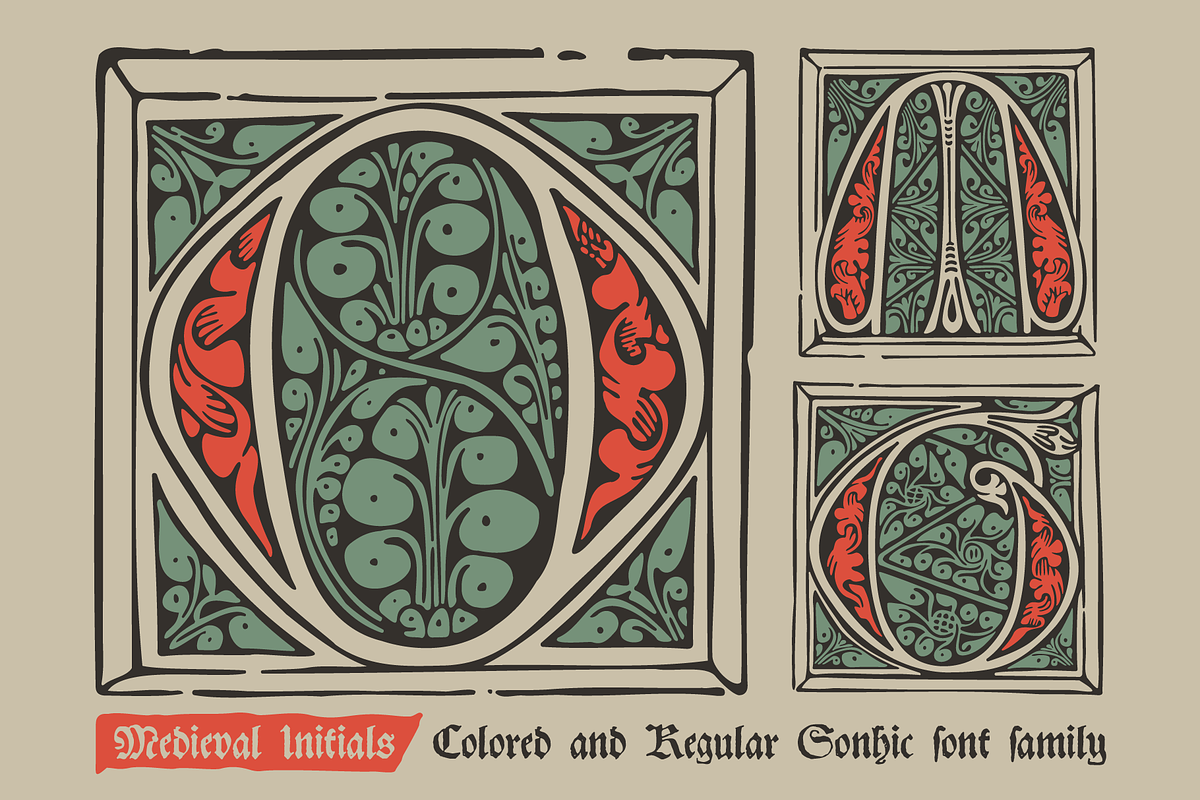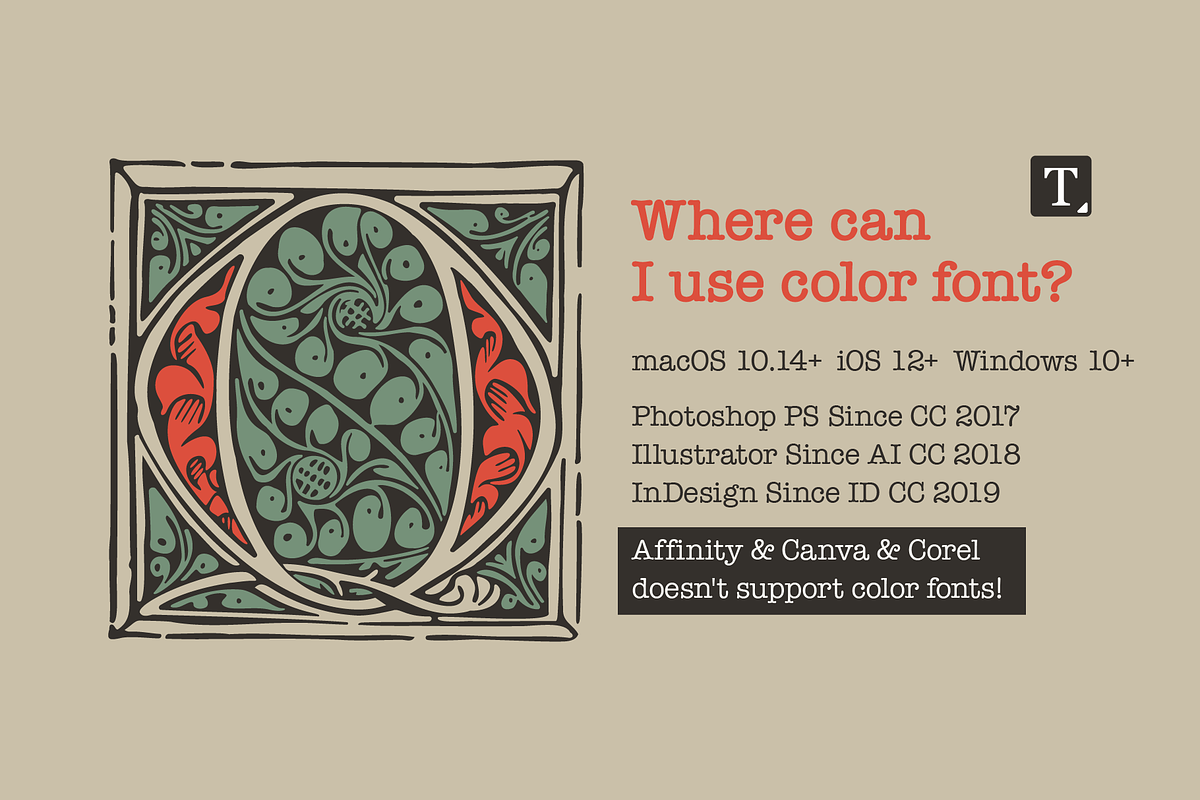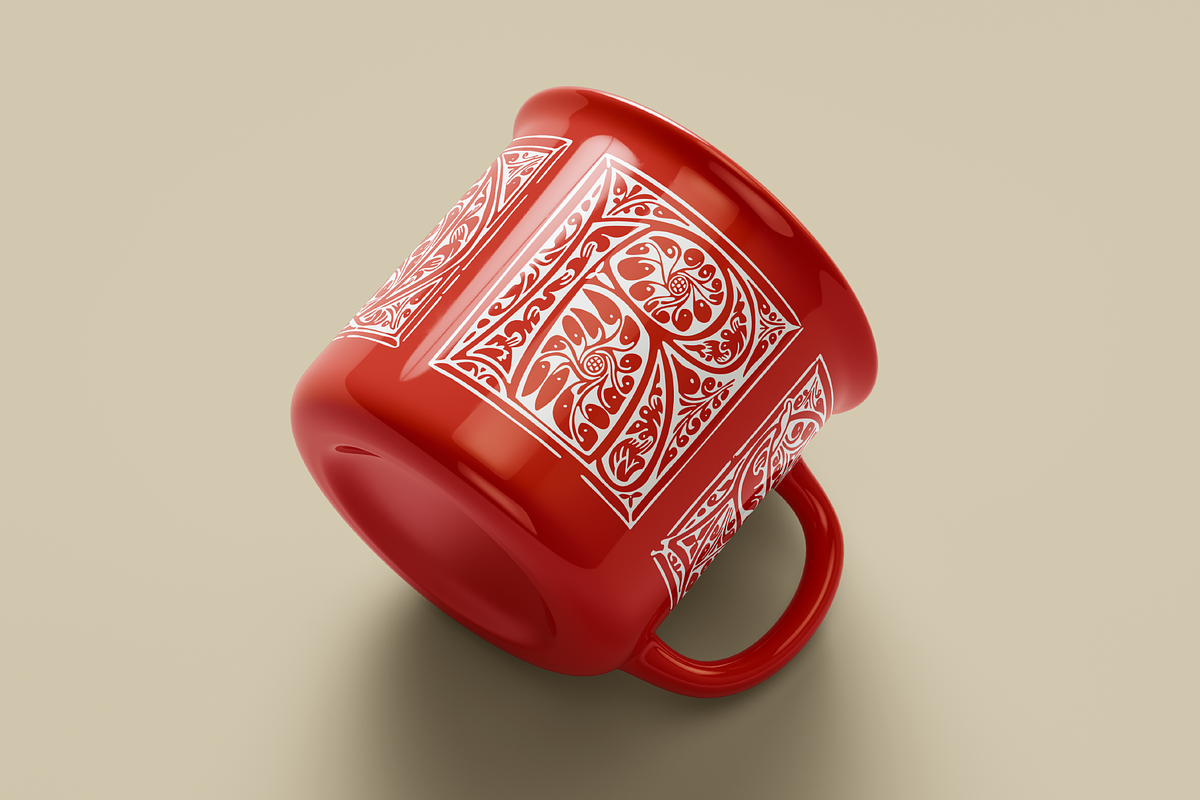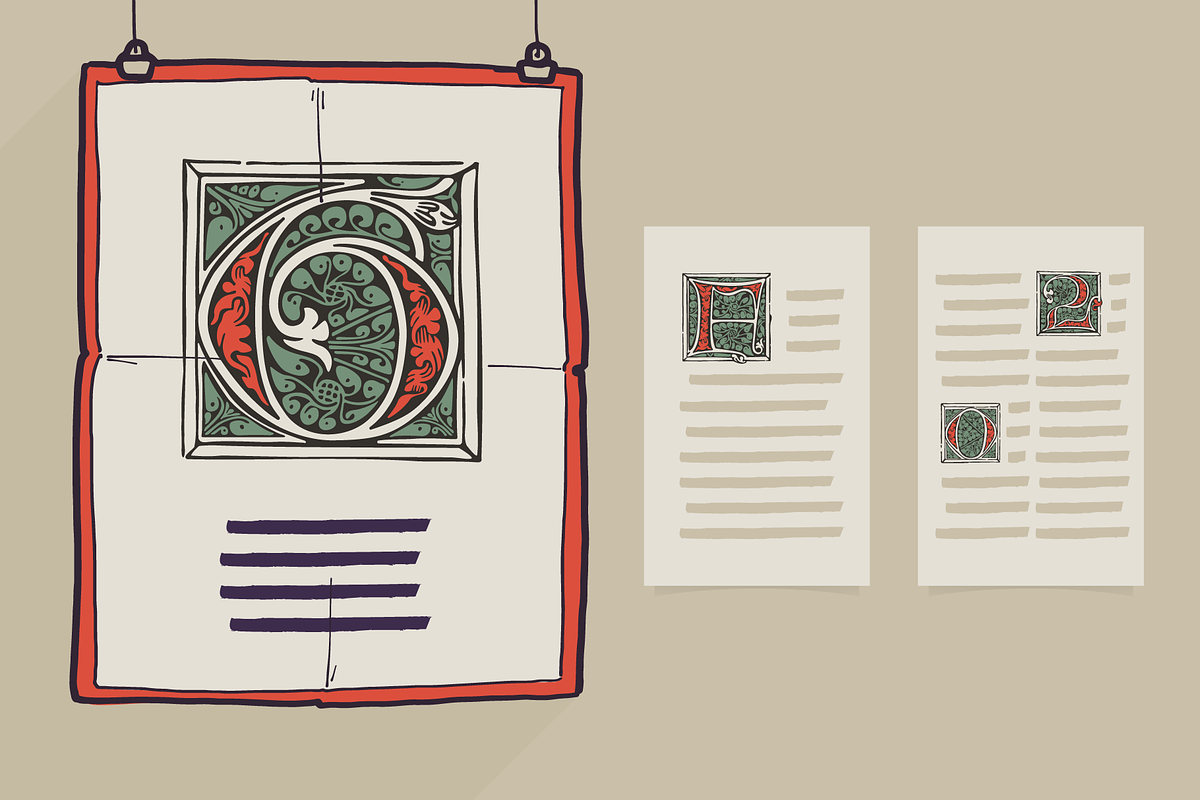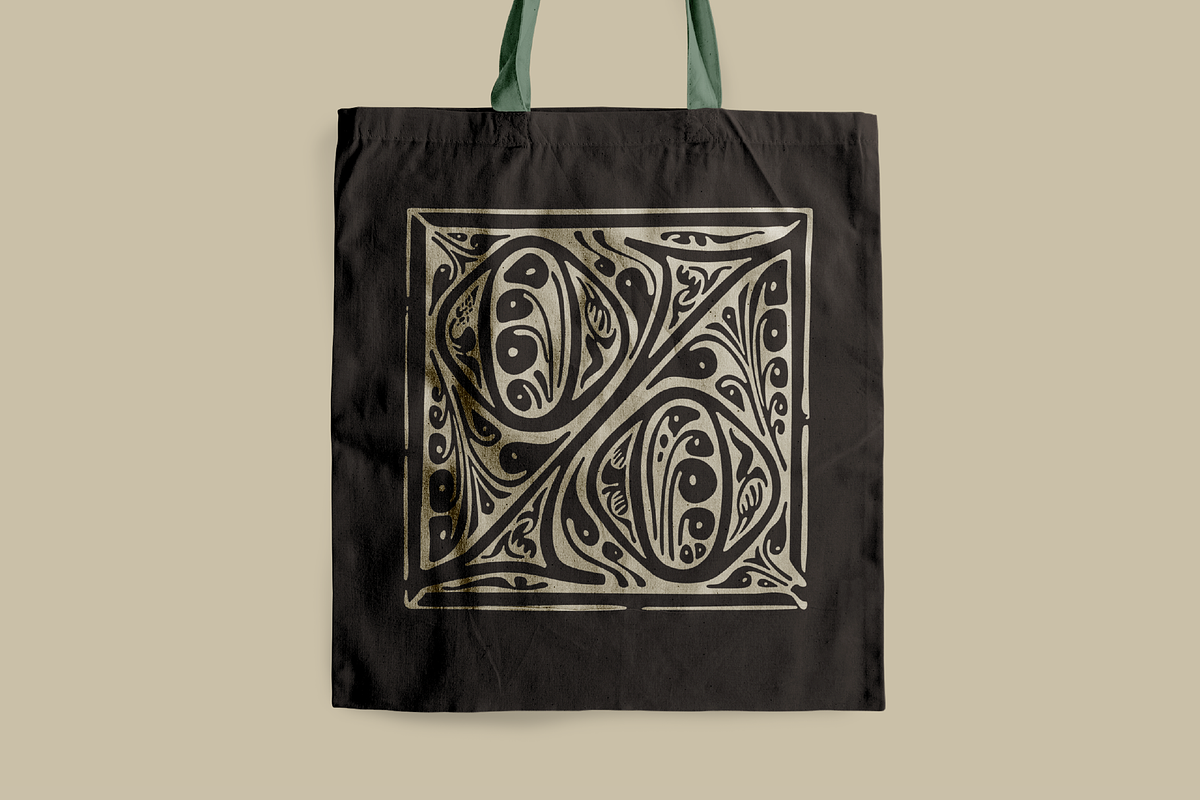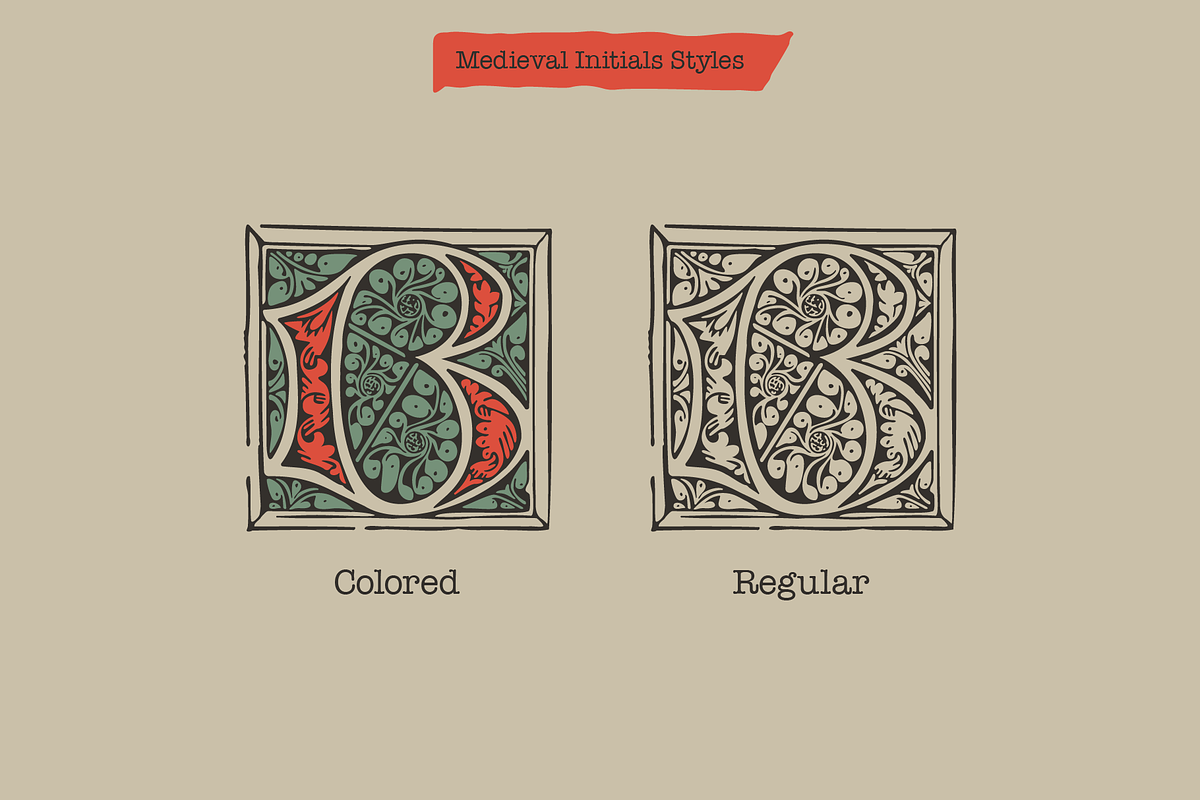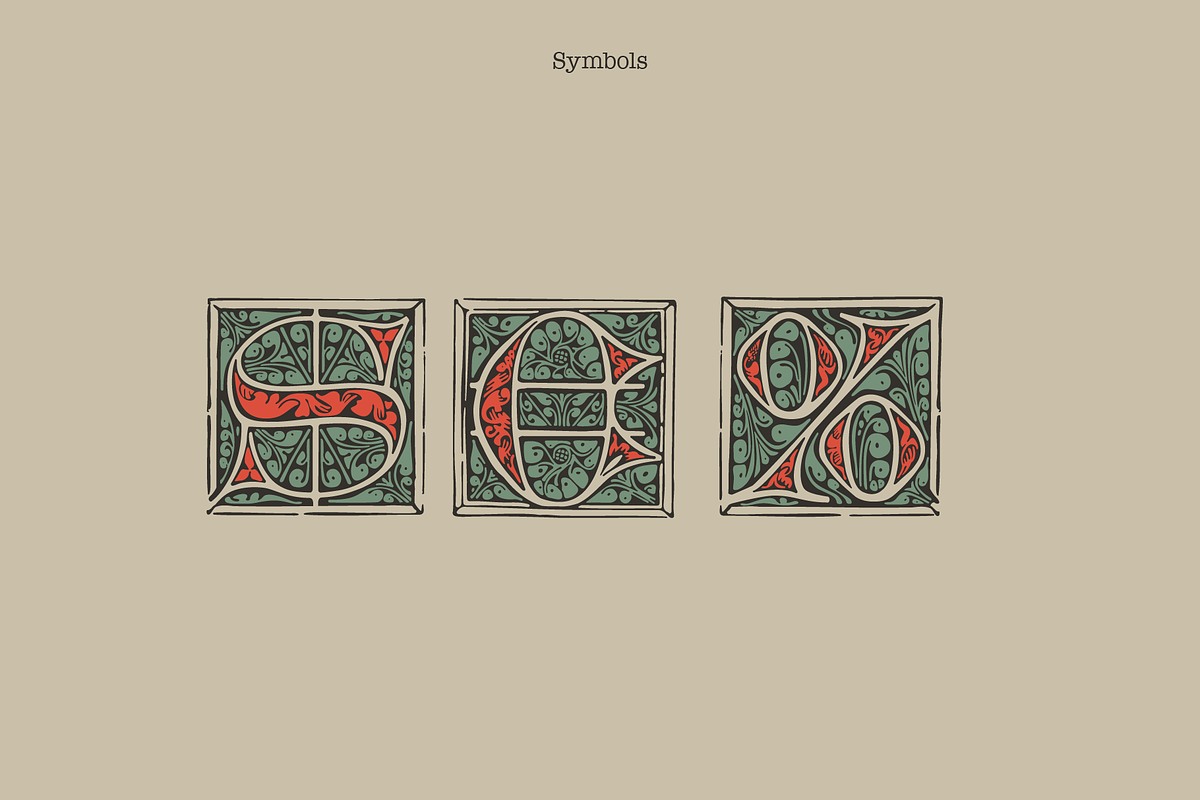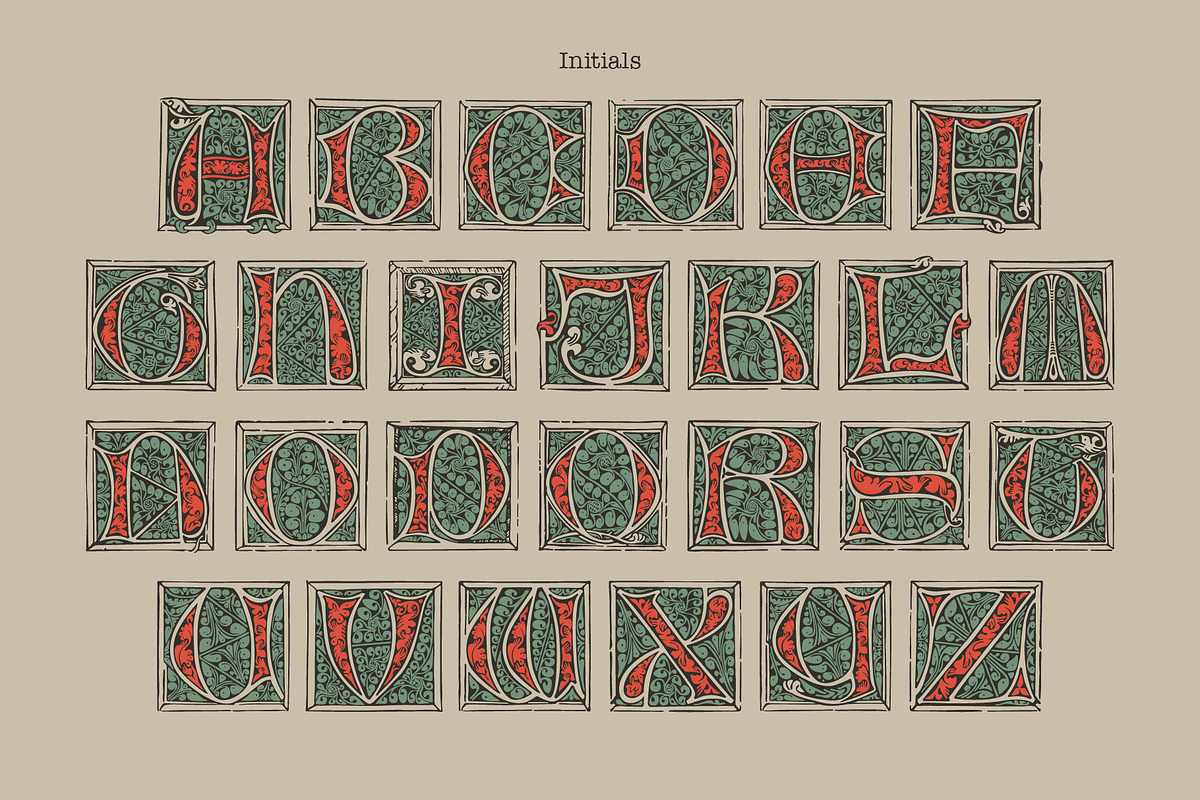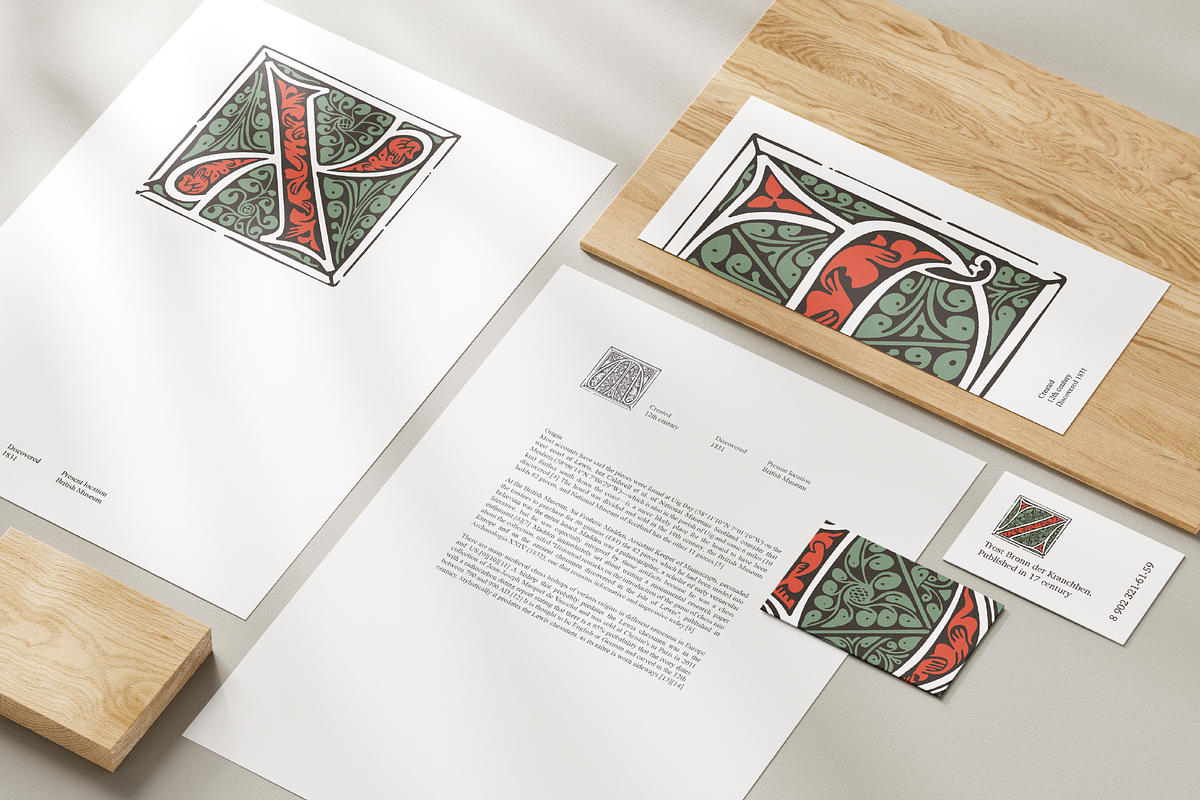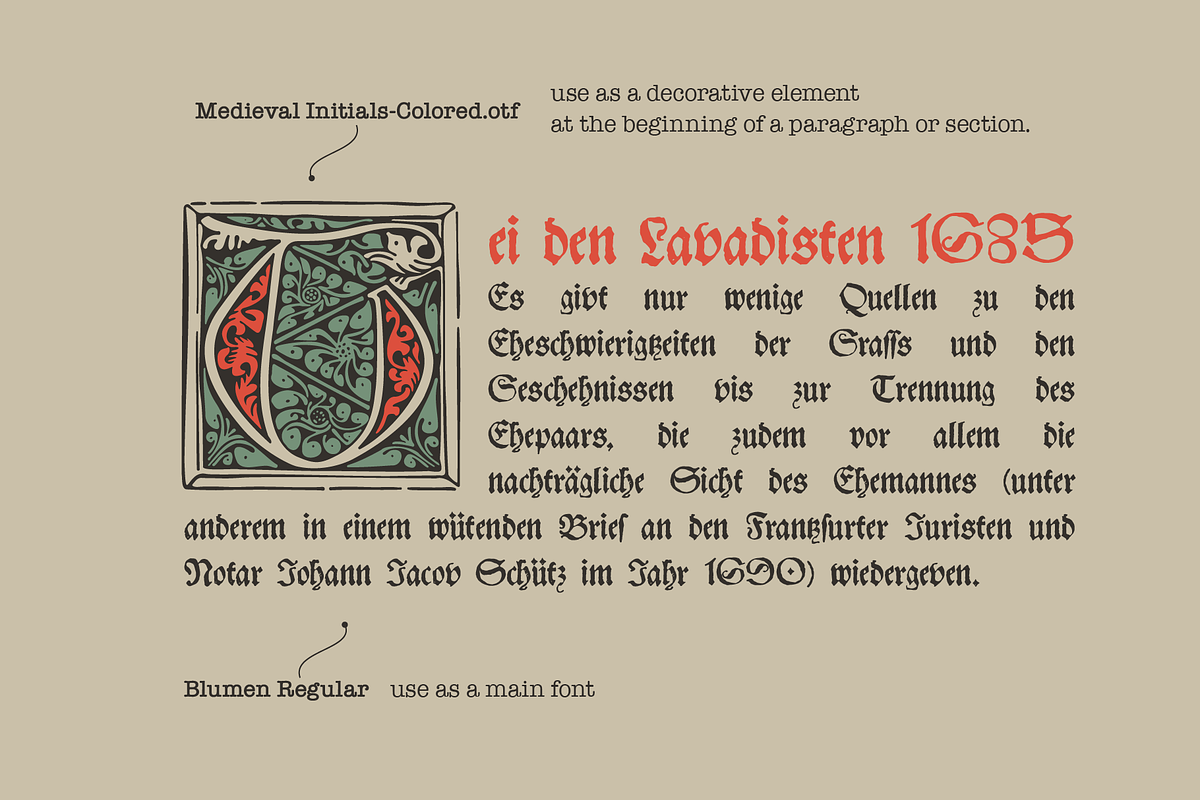
Medieval Initials. Gothic Drop caps
Here is my new project based on Ptolemy's Cosmographia published by Leonhard Holl in 1482. It's an outstanding monument to the typographic art of early printing. The publication glorified the printer and once again confirmed the importance of the city of Ulm as one of the centers of book printing in Germany.
Hall paid special attention to the artistic design of the atlas. Hand-made multi-color painting adds sophistication to the design. A large, easy-to-read antique type font was used to print the text.
Engraved initials are hand-painted. In original initials are hand-painted with stains and smudges all over the book, but it looks awesome. The classic floral ornament is used in the lettering embellishments.